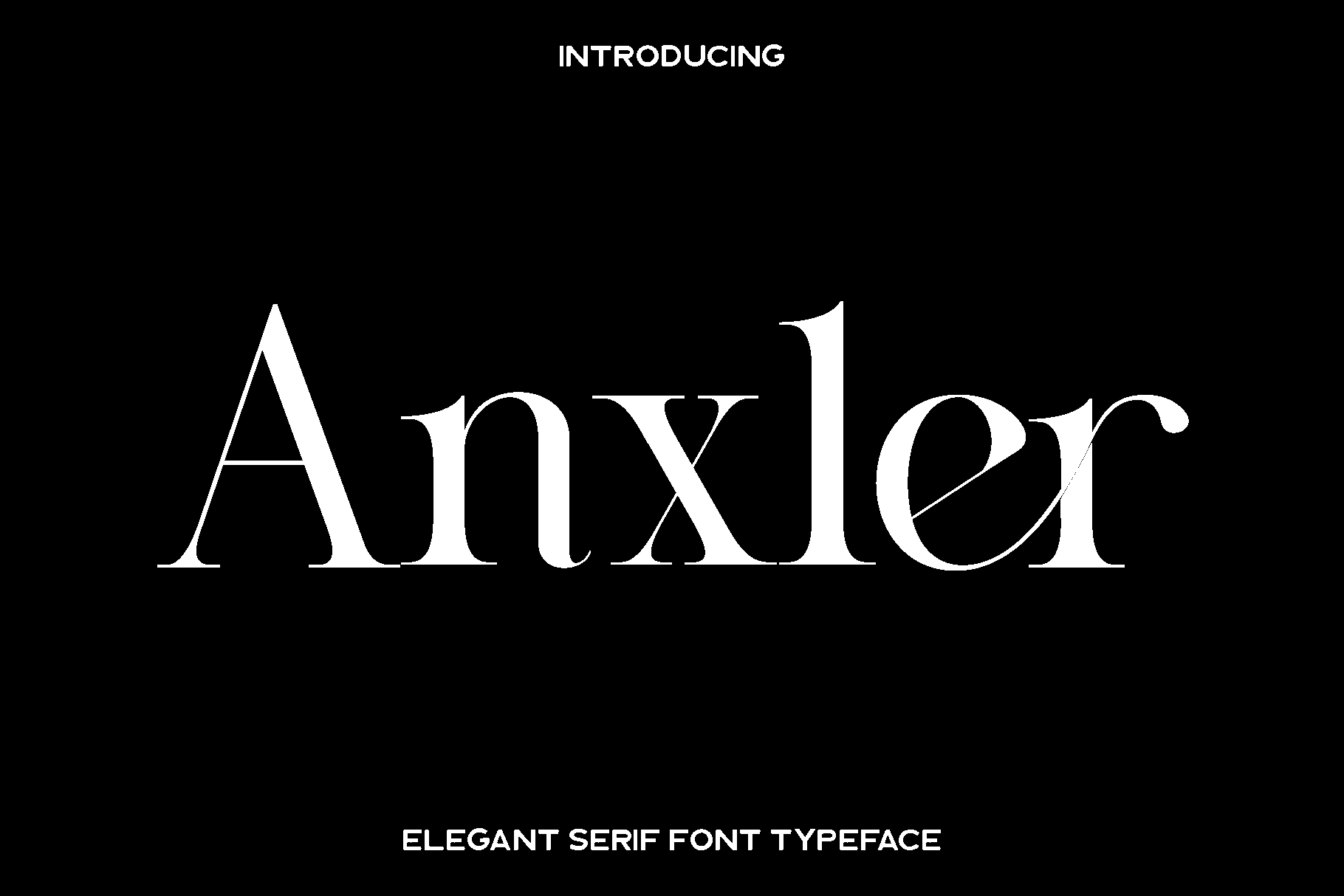
Anxler - Classy Serif Font
Anxler is an elegant serif font created for designers who appreciate refinement, luxury, and timeless beauty. Inspired by high end branding and sophisticated editorial typography, Anxler features graceful curves, delicate contrasts, and perfectly balanced letterforms that bring an elevated feel to any project. Each character is crafted with care to ensure a polished and luxurious appearance, making Anxler a standout choice for design work that requires both style and clarity.
This font shines in branding and logo design, where its elegant structure adds a sense of prestige and professionalism. Anxler is also perfect for wedding invitations, product packaging, advertisements, social media content, photography branding, watermarks, stationery, and any creative project that demands a classy visual identity. Its high level of legibility ensures that your designs remain clear, impactful, and visually captivating across both print and digital mediums.
Anxler blends modern sophistication with classic charm, offering a versatile aesthetic that adapts beautifully to minimal, luxurious, and editorial themes. Whether you are creating bold headlines or refined body text, Anxler brings harmony, elegance, and distinction to your work. Let this font elevate your designs with a touch of class and timeless style.
Anxler Font Features:
• Standard characters
• Numbers and punctuation
• Accented characters for Western Europe